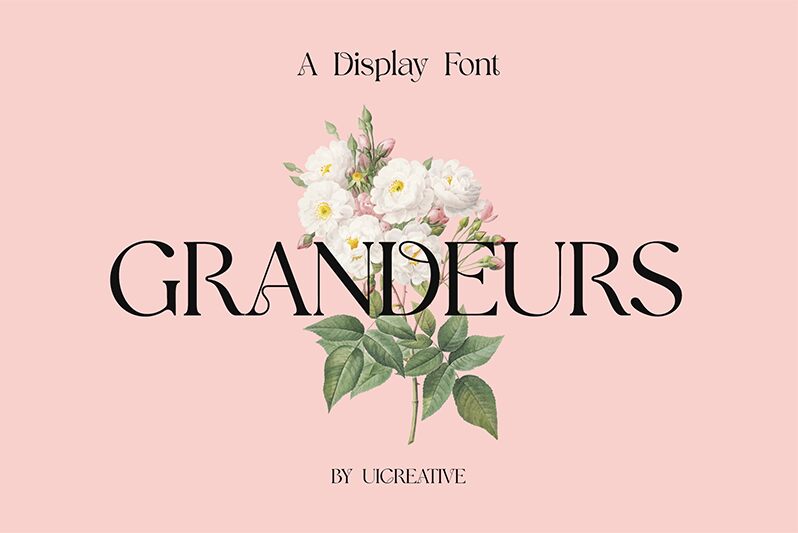
GRANDEURS
The Grandeurs serif font exudes a timeless elegance, with its graceful curves and strong, confident strokes. Crafted by UI Creative, this typeface boasts a sophisticated aesthetic that seamlessly blends traditional influences with a modern sensibility. The distinctive serifs lend a sense of gravitas, while the balanced proportions and harmonious letter spacing create a visually appealing and cohesive typographic display.
Grandeurs' versatility makes it a compelling choice for a wide range of design applications. From editorial layouts to branding projects, its classic charm and legibility shine through, elevating the overall visual impact. Whether you're seeking a font to anchor a high-end publication, or one that can infuse a brand with a sense of refined sophistication, Grandeurs by UI Creative is a font that deserves consideration.